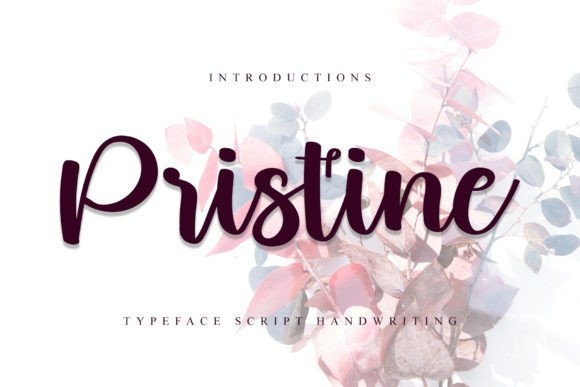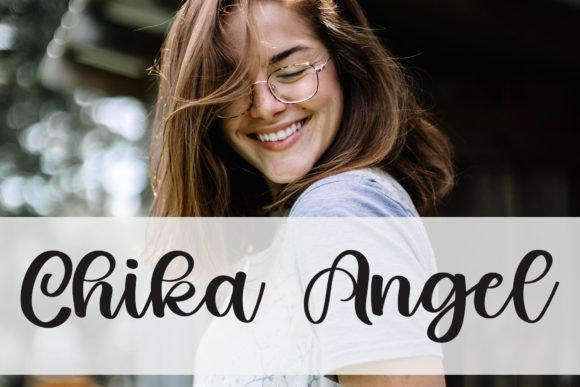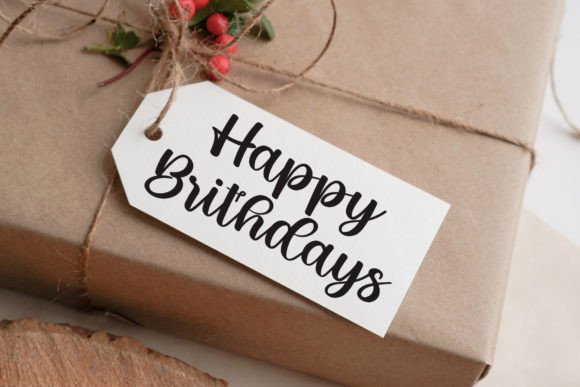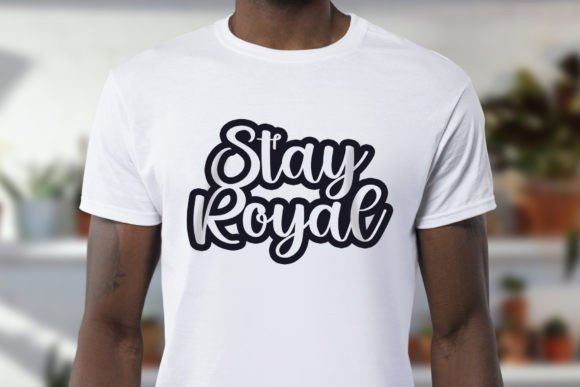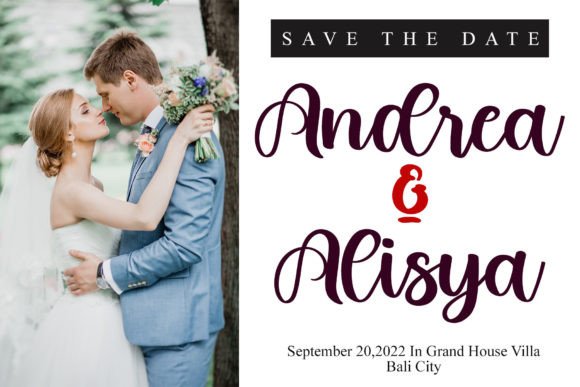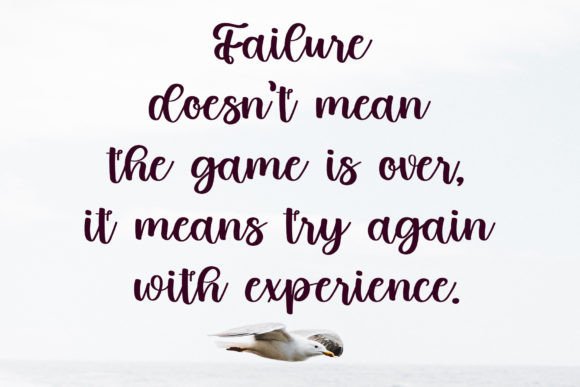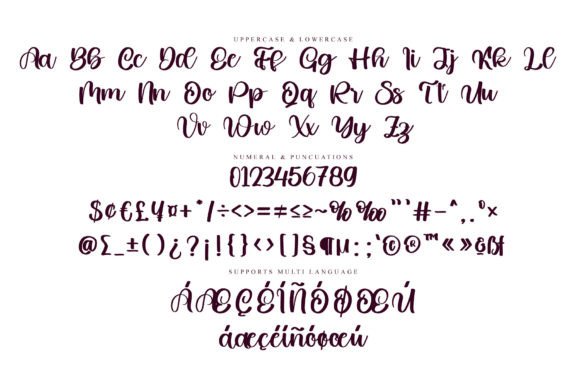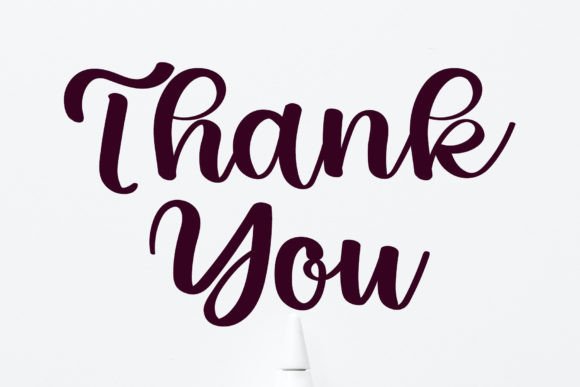
Pristine Font
About Pristine Font
“Pristine” is described as a modern and friendly handwritten font that has been carefully crafted with meticulous attention to detail. This font possesses the potential to become a valuable asset in your font library, as it excels in enhancing a wide range of creative projects, regardless of the subject matter.
The charm of “Pristine” lies in its ability to convey a sense of modernity and friendliness, making it suitable for various design contexts. Whether you’re working on branding, social media graphics, posters, or any creative endeavor, this font offers a versatile and visually engaging option. It allows you to communicate your message with a modern and friendly touch.
As you incorporate “Pristine” into your creative process, you’ll discover its remarkable ability to elevate your work, making it visually appealing and memorable. This font becomes a dependable and versatile tool for designers seeking to create designs that resonate with a contemporary and approachable aesthetic.
In summary, “Pristine” is a modern and friendly handwritten font that excels in adding a welcoming and contemporary touch to a wide variety of design projects. Its versatility and meticulous craftsmanship make it a valuable choice for designers looking to create visually appealing and engaging work. Allow “Pristine” to be your creative companion, and witness how it enhances your designs, ensuring they exude a modern and friendly essence, enhancing any creation.